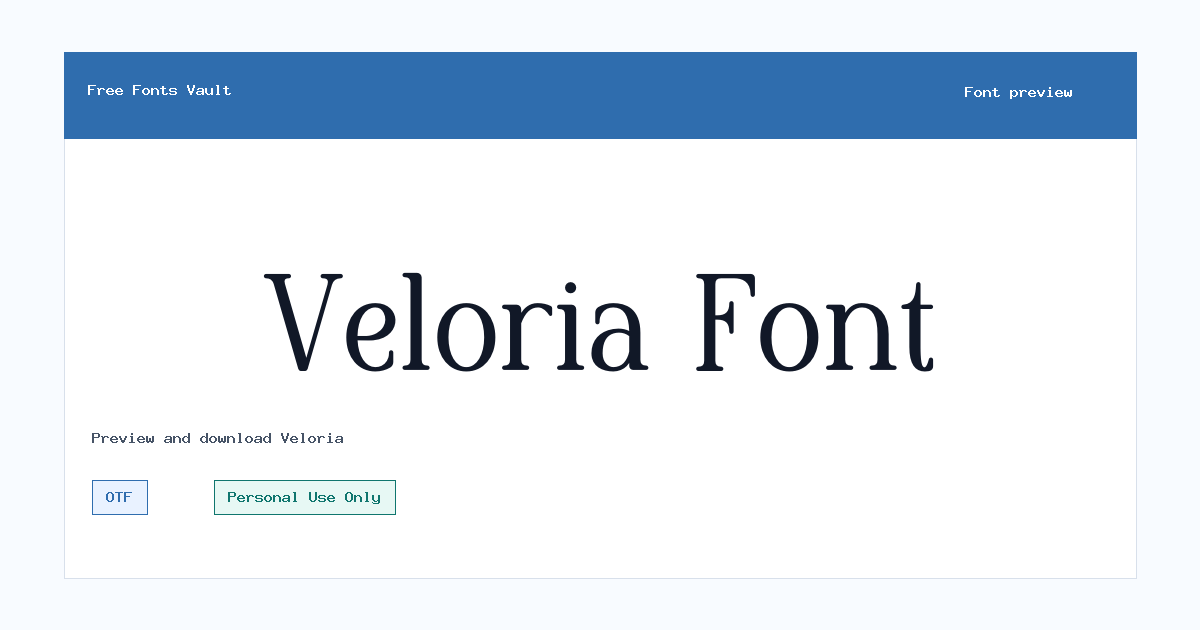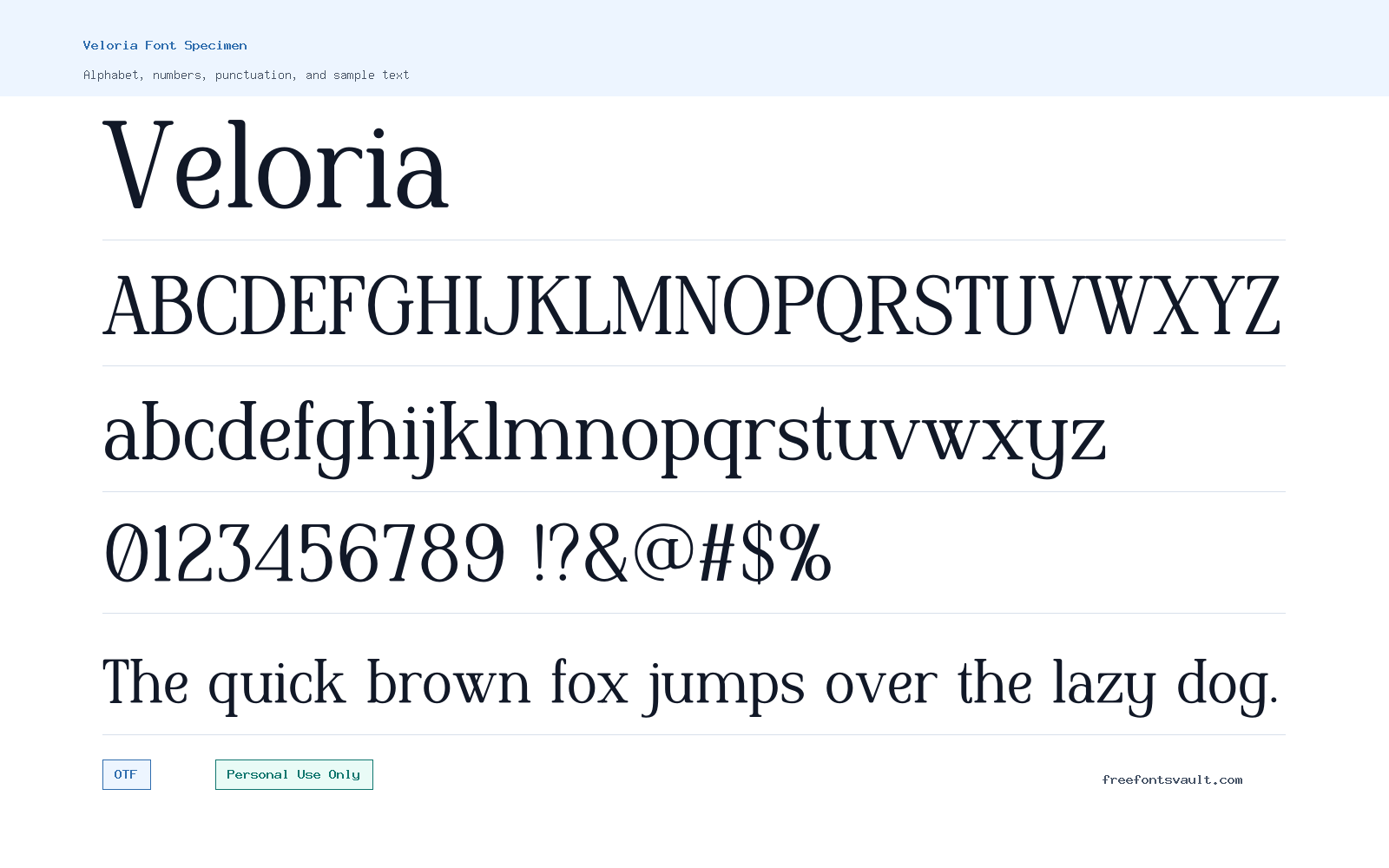
Veloria
- Designer Skytroopas Team
- Foundry skytroopas
Veloria font.
Veloria is a serif font from Skytroopas Team, offered in a regular OTF style for personal-use design work. It is a practical choice to try when you need a more refined text style for titles, display layouts, invitations, social graphics, or brand mockups that need a serif voice rather than a plain sans serif.
About Veloria Font
Veloria is listed as a serif font, which means visitors should approach it as a typeface built around letterforms with finishing strokes rather than the simpler shapes of a sans serif. That makes it useful for projects where the typography needs to feel more composed, editorial, or decorative without relying on heavy illustration. Since the available style is regular with a 400 weight, it is best to test it first in headings, short phrases, names, and logo-style lockups instead of assuming it will cover a full typography system on its own. A single regular weight can still be very useful, but it usually needs help from spacing, size, color, and a supporting font to create strong hierarchy.
For designers, Veloria is worth previewing in the exact words you plan to use. Serif fonts can change character quickly depending on whether the text uses uppercase, lowercase, punctuation, or longer phrases. Try it with a brand name, a poster headline, a wedding title, a product label, or a short website hero line. If the letters feel too detailed at small sizes, keep it for larger display use and pair it with a clean sans serif for body copy, menus, captions, and interface text. For logo work, check the spacing between difficult letter pairs, test black-and-white versions, and avoid finalizing any commercial identity until the license terms are confirmed for that use.
- Serif font style suited to display text, titles, and short-form design experiments.
- Logo drafts, nameplates, and brand concept mockups where a serif tone is useful.
- Poster titles, event graphics, invitations, and social media headings.
- Website hero text and landing page mockups when used at larger sizes.
- Product labels, packaging concepts, editorial headers, and moodboard typography.
What kind of font is Veloria?
Veloria is presented as a serif font. It is best to preview it in display settings such as titles, logos, poster text, invitations, and short decorative lines.
What should I pair with Veloria?
A clean sans serif is usually the safest pairing for body text, captions, navigation, and UI elements. Let Veloria handle the headline or logo-style text, then use the supporting font for readability.